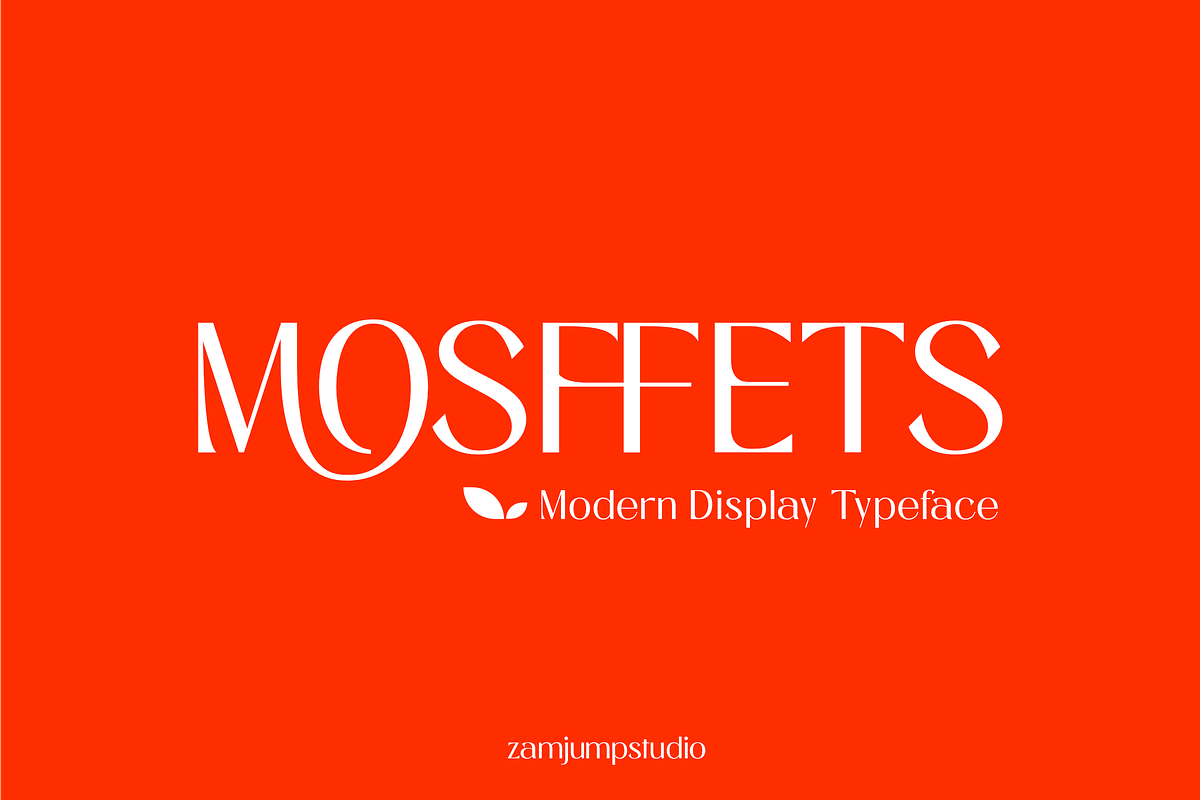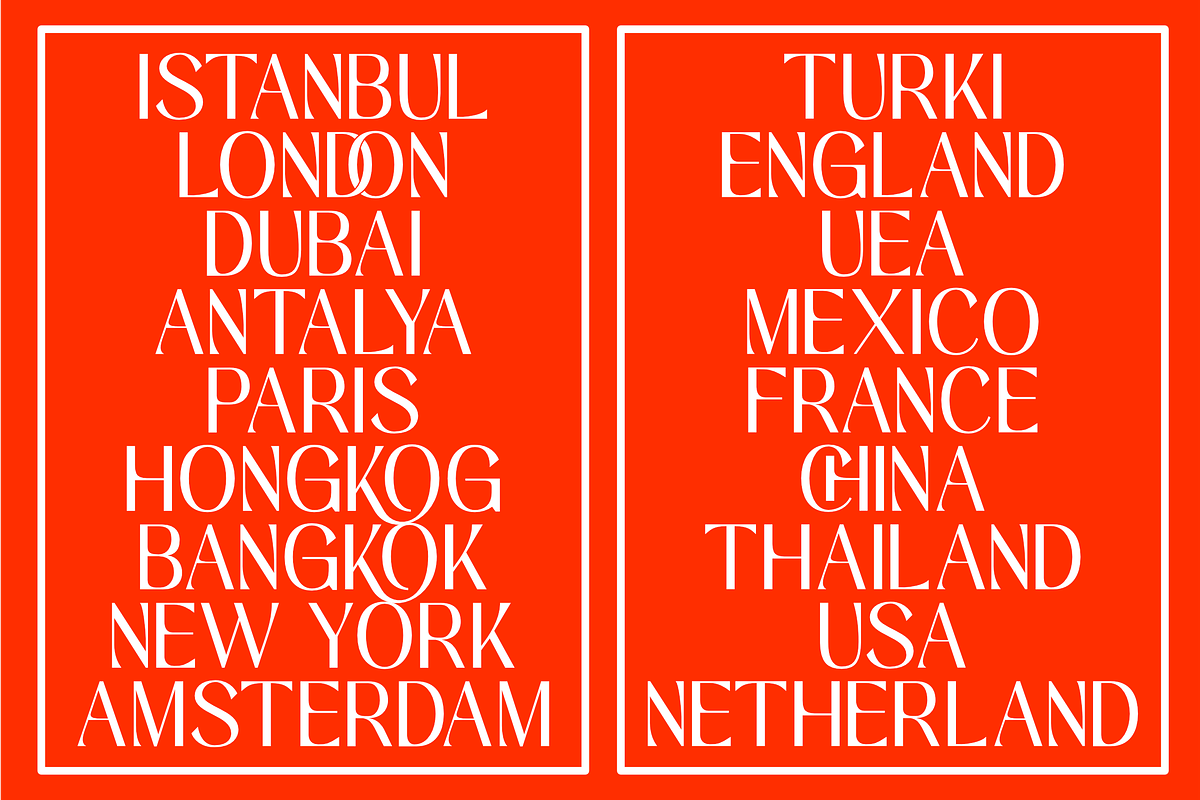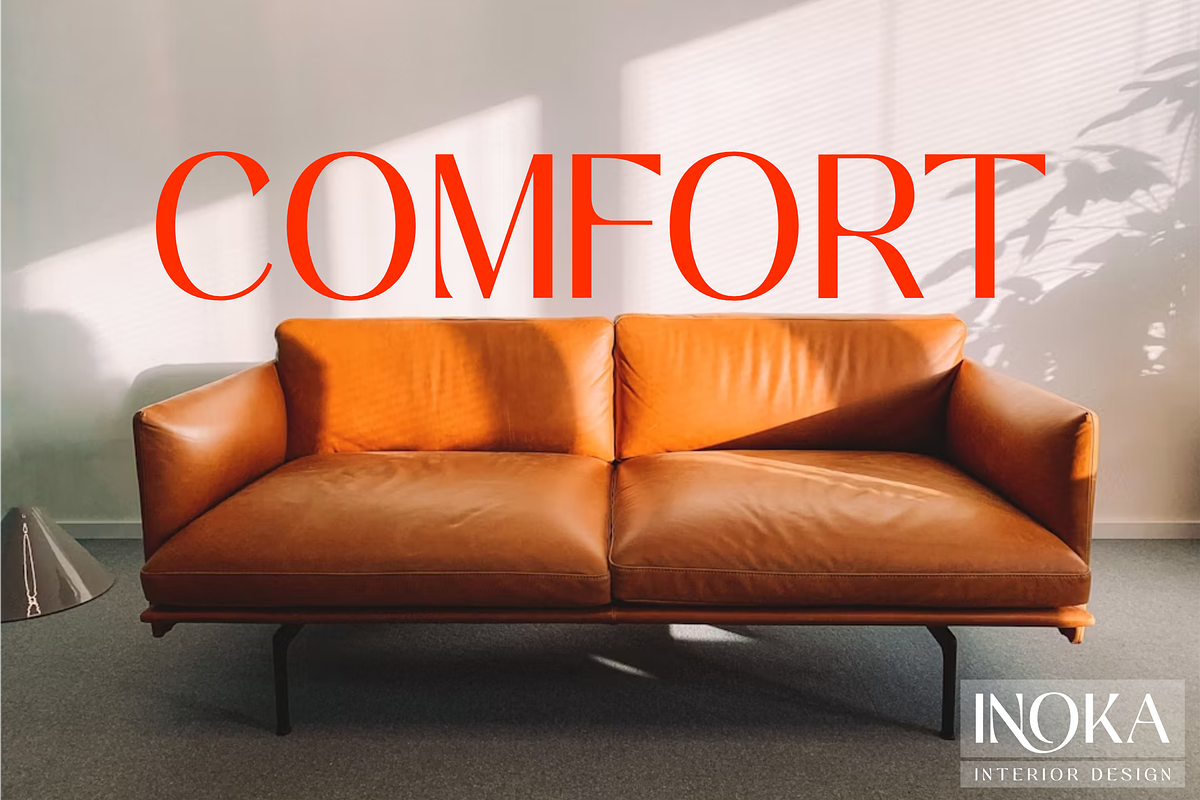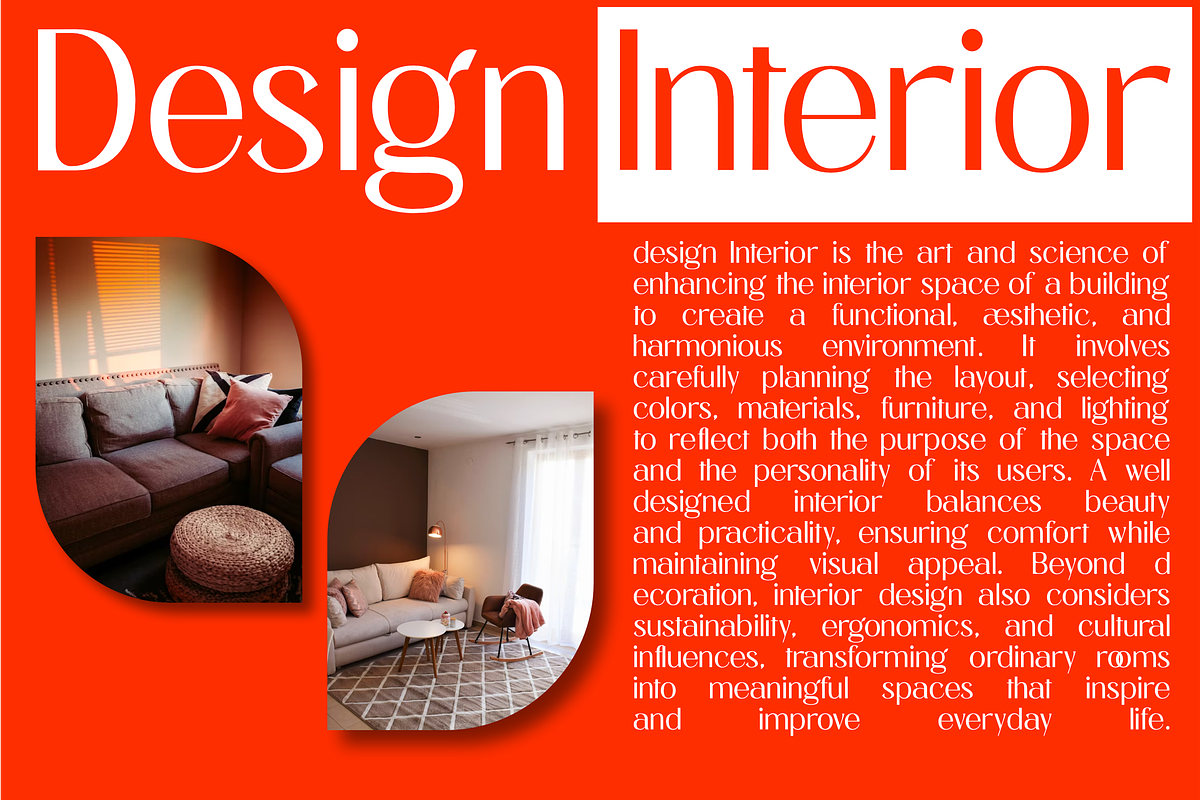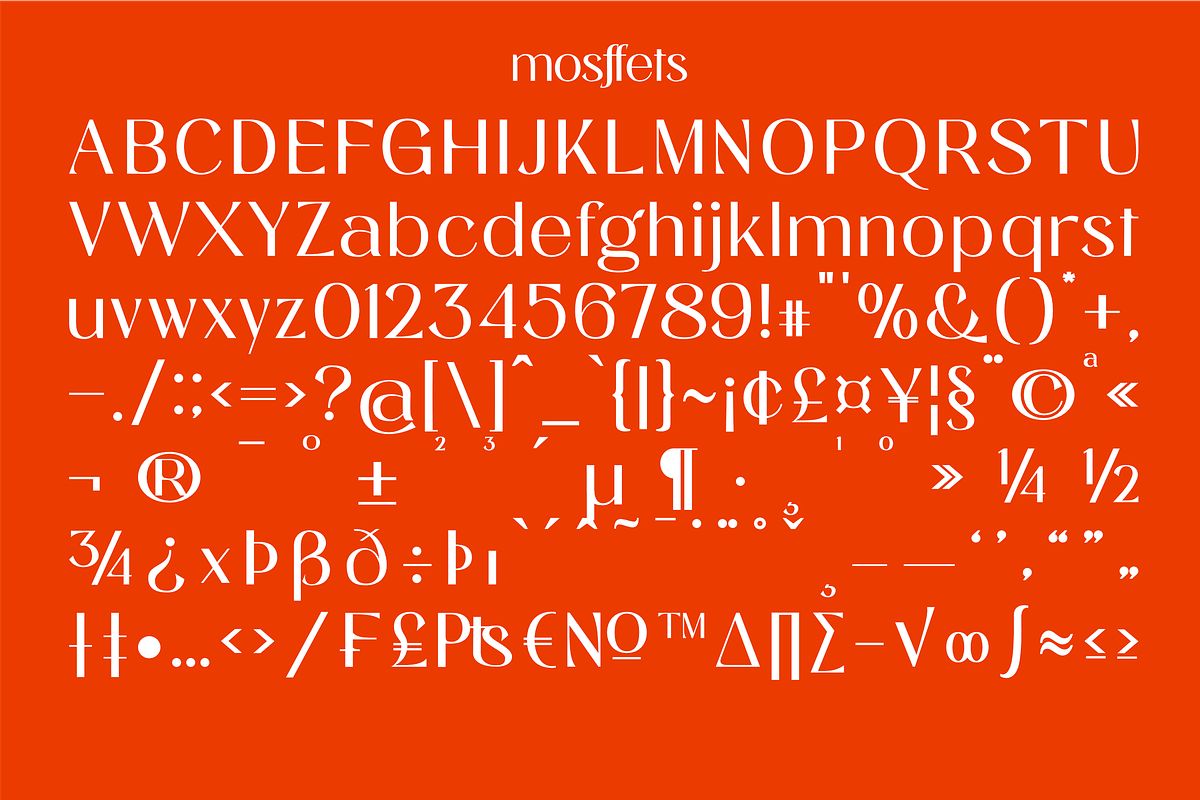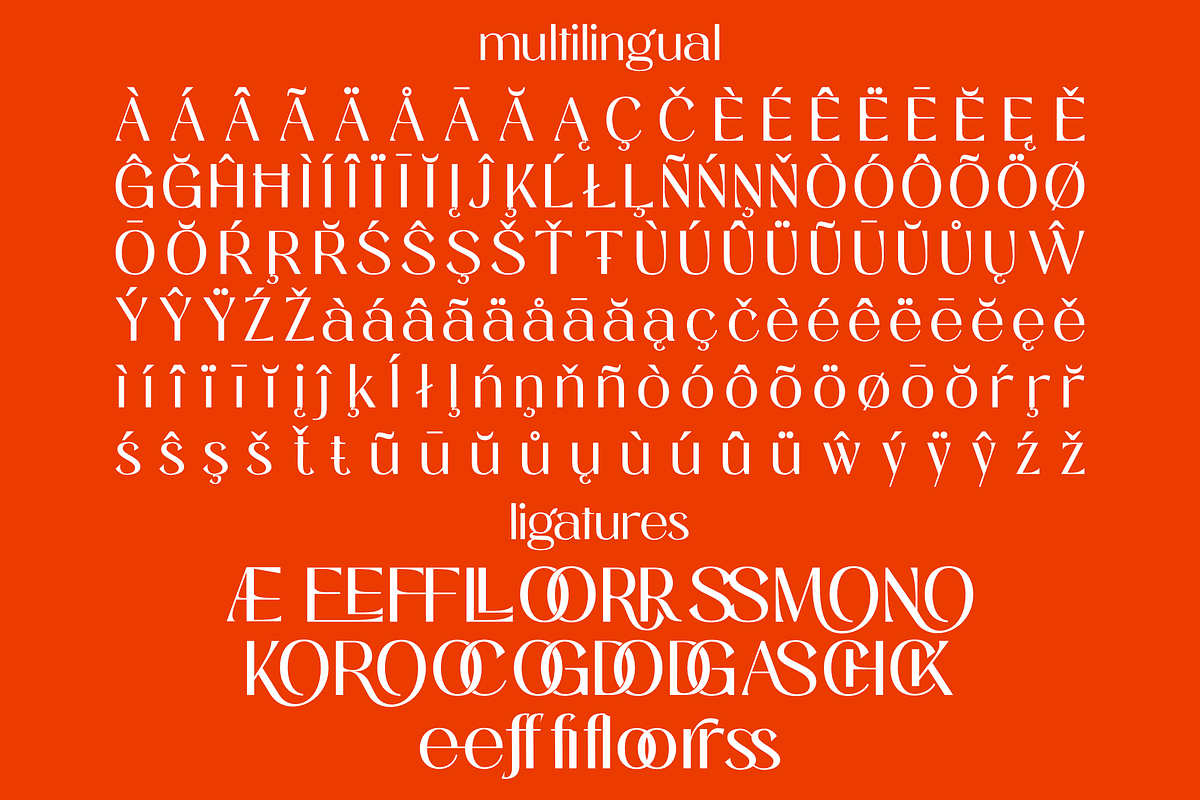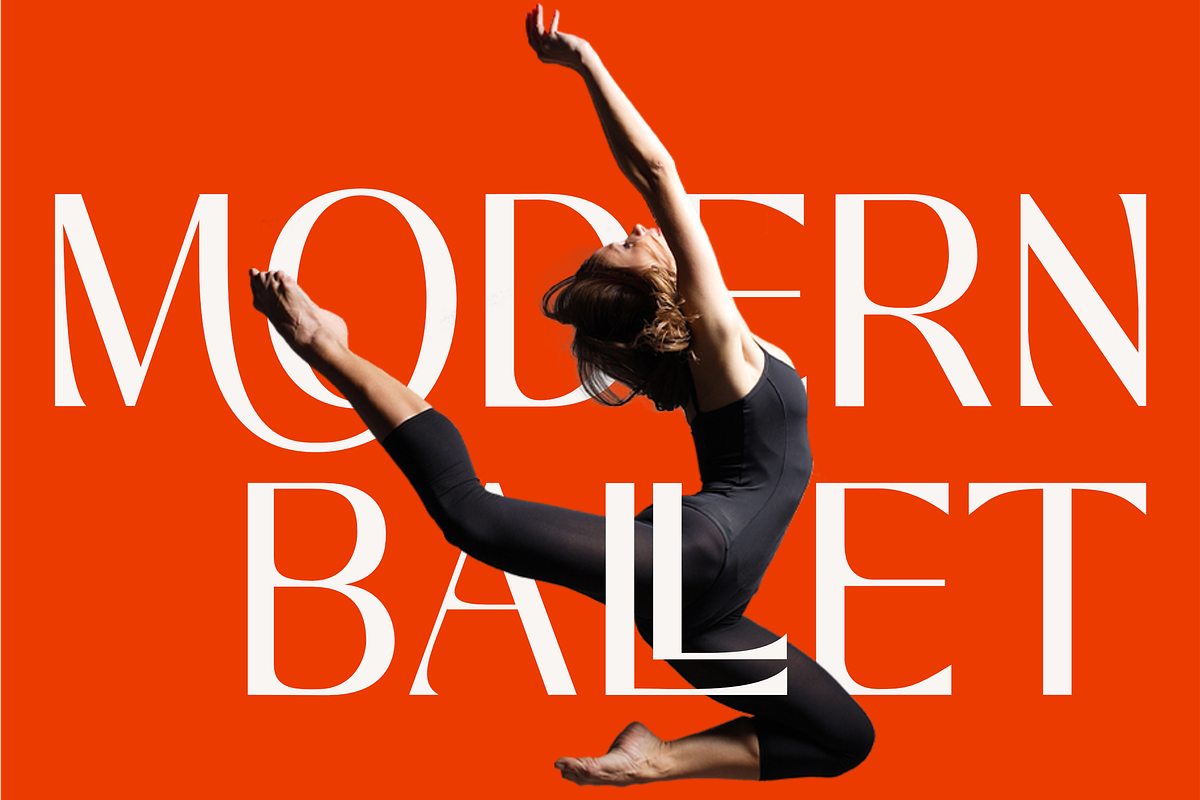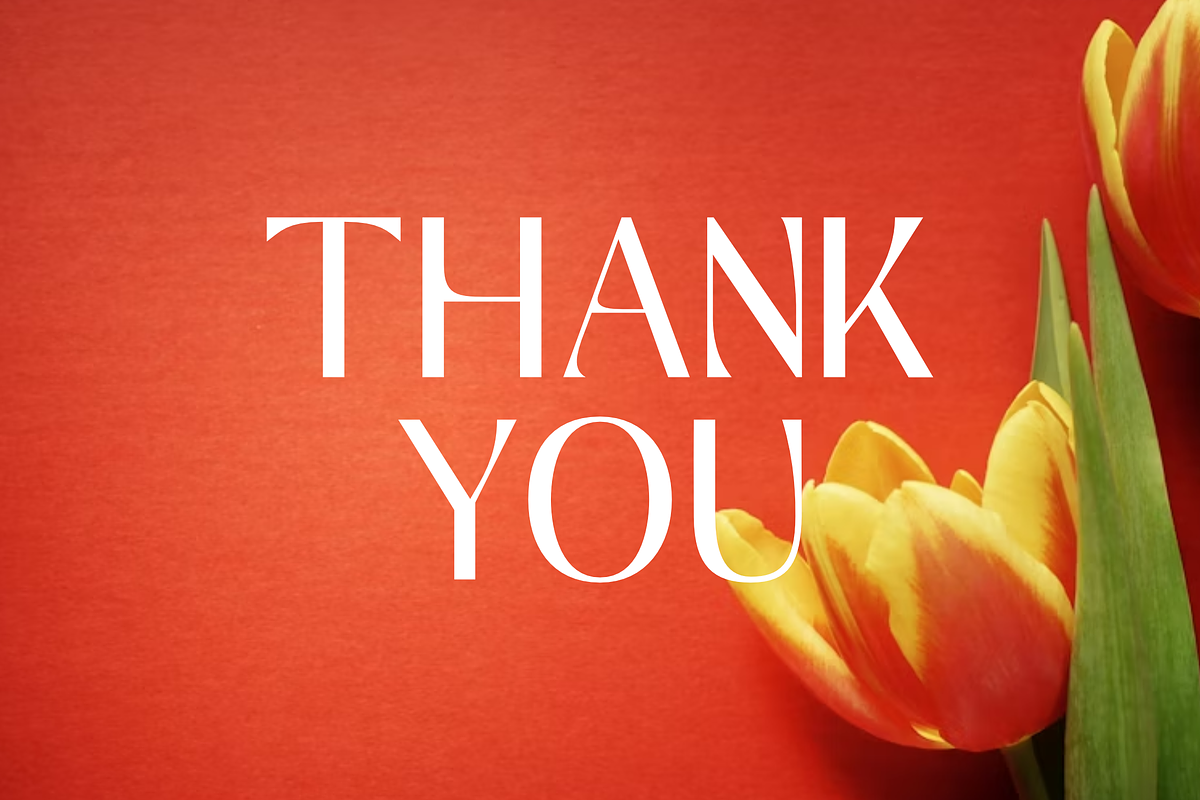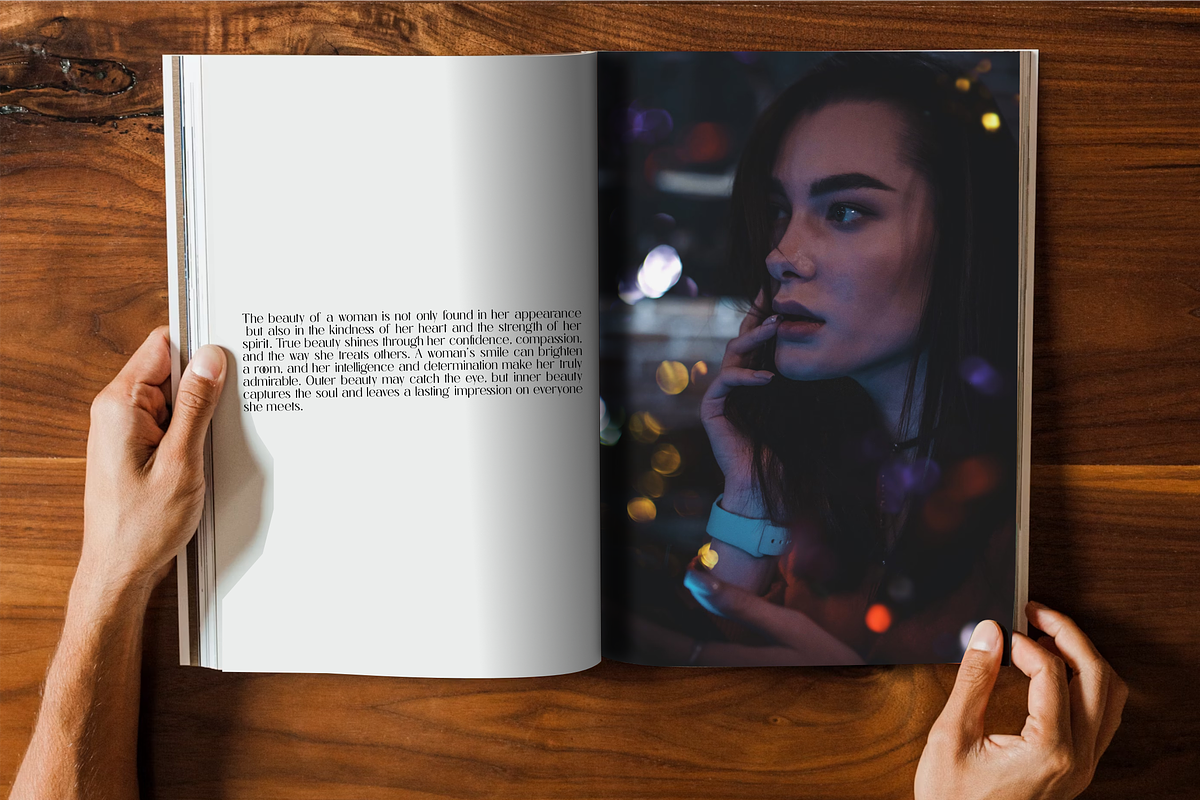
Mosffets - Modern Display Typeface
Mosffets is a modern and elegant display typeface designed to bring sophistication and creativity to your design projects. Its harmonious ligatures and stylish letterforms make it perfect for designers who value balance and aesthetic beauty. This font works beautifully across a wide range of applications — from branding and logo design to magazine covers, packaging, movie titles, posters, and more. With Mosffets, every word becomes a visual statement that reflects confidence, modernity, and artistic flair. Included: OTF/TTF/WOFF/WOFF2 Uppercase Lowercase Punctuation Number Alternate Multilingual